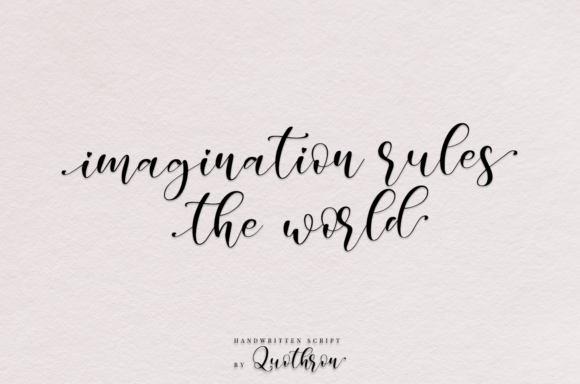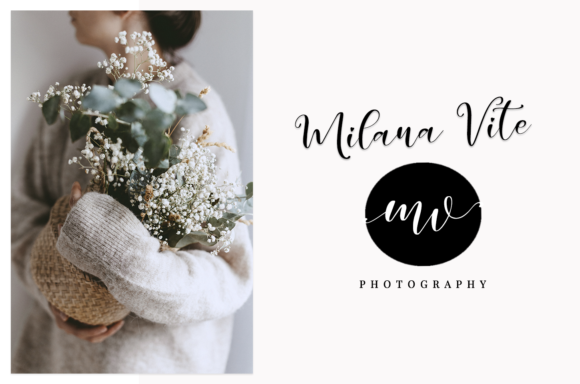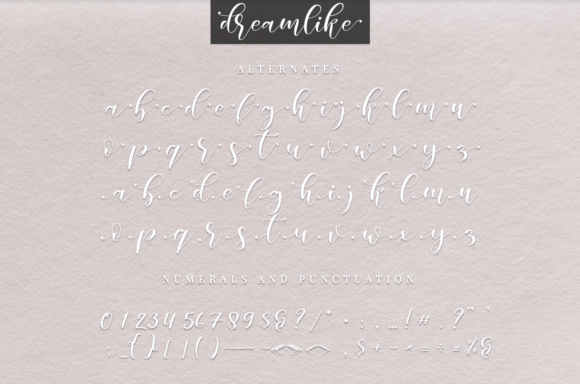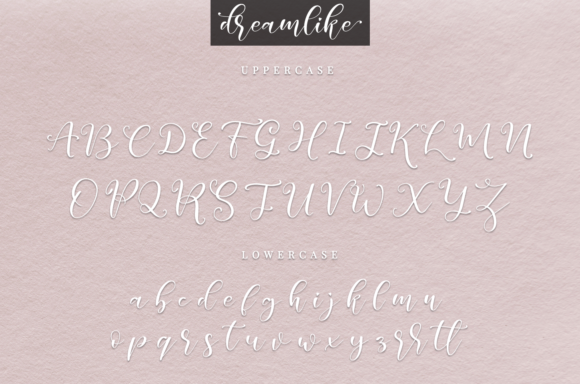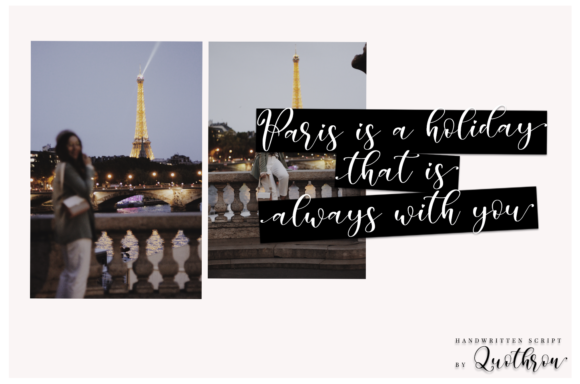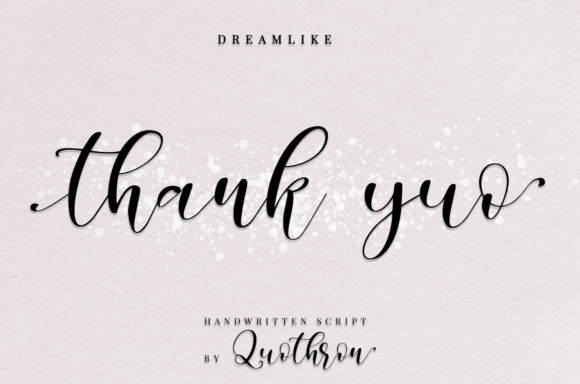
The Dreamlike Script Font: A Designer’s New Best Friend
I still remember the project like it was yesterday. I was working on a whimsical craft blog design, and my client asked for a font that would evoke a sense of wonder and magic. I scoured the internet, tried out countless fonts, but none seemed to fit the bill. That was until I stumbled upon the Dreamlike Script Font. ✨ It was love at first sight! The smooth, charming curves and original design elements instantly captured the essence of what I was trying to achieve.
So, what makes the Dreamlike Script Font so special? Let’s dive into the good stuff and a few quirks I’ve discovered.
- ✅ Smooth and Charming: The font’s elegant curves and flowing lines make it perfect for projects that require a touch of sophistication and whimsy.
- ✨ Original Design Elements: The font’s unique features, such as the swashes and ligatures, add a creative twist to any design.
- ✅ Highly Versatile: Whether you’re working on a craft blog, a packaging design, or a social media graphic, this font adapts seamlessly.
While the Dreamlike Script Font is an excellent choice, there are a few things to keep in mind:
- ⚠️ Legibility at Small Sizes: Like many script fonts, Dreamlike can become a bit tricky to read at very small sizes. Make sure to test it out at different sizes to ensure it works for your project.
- 🤔 Pairing with Other Fonts: While the font is stunning on its own, finding the perfect pairing can take some experimentation. Be prepared to try out a few combinations to find the perfect match.
- Explore the font’s glyphs and stylistic alternates to add some extra creativity to your design.
The Story Behind Dreamlike
The Dreamlike Script Font was created with the intention of capturing the essence of a dreamlike state – ethereal, whimsical, and enchanting. The designer aimed to create a font that would transport readers to a world of imagination and wonder.
Q: What makes the Dreamlike Script Font unique?
A: The font’s unique blend of smooth curves, elegant lines, and original design elements sets it apart from other script fonts.
Q: Is the Dreamlike Script Font suitable for body text?
A: While the font is beautiful, it’s best suited for headlines, titles, and short paragraphs. For longer body text, a more legible font might be a better choice.